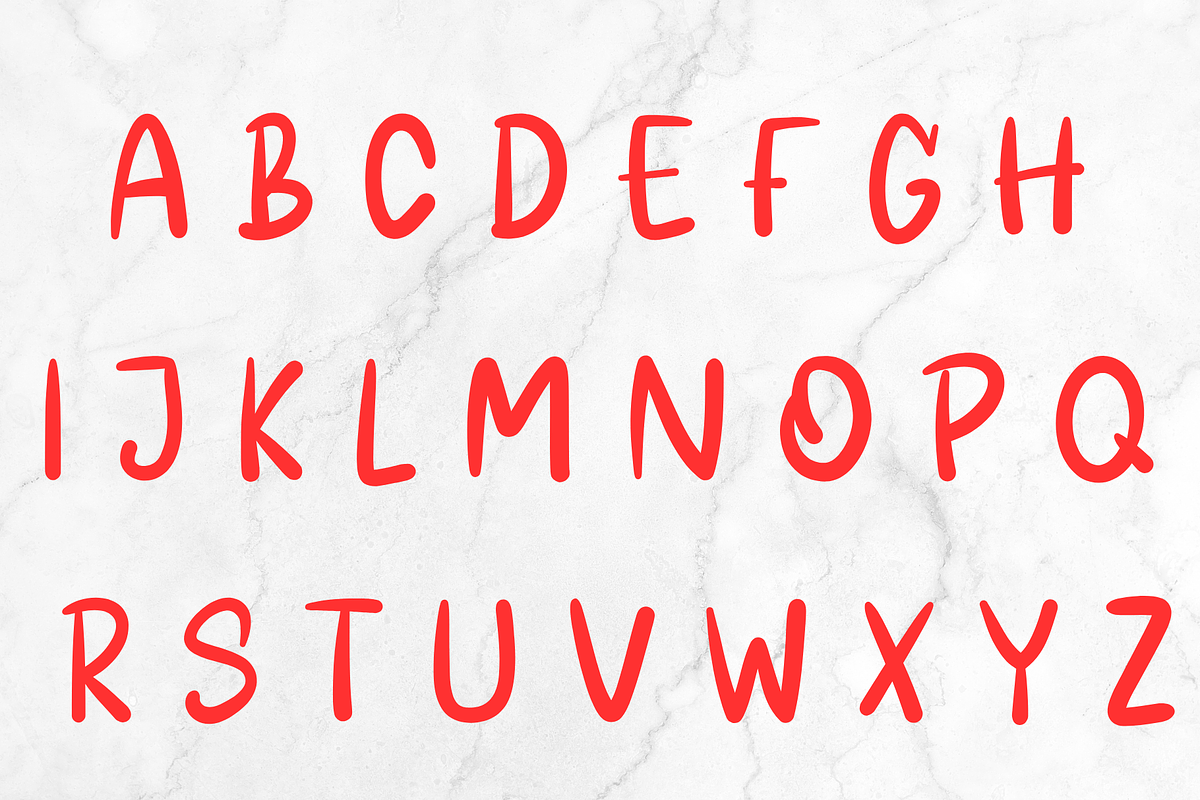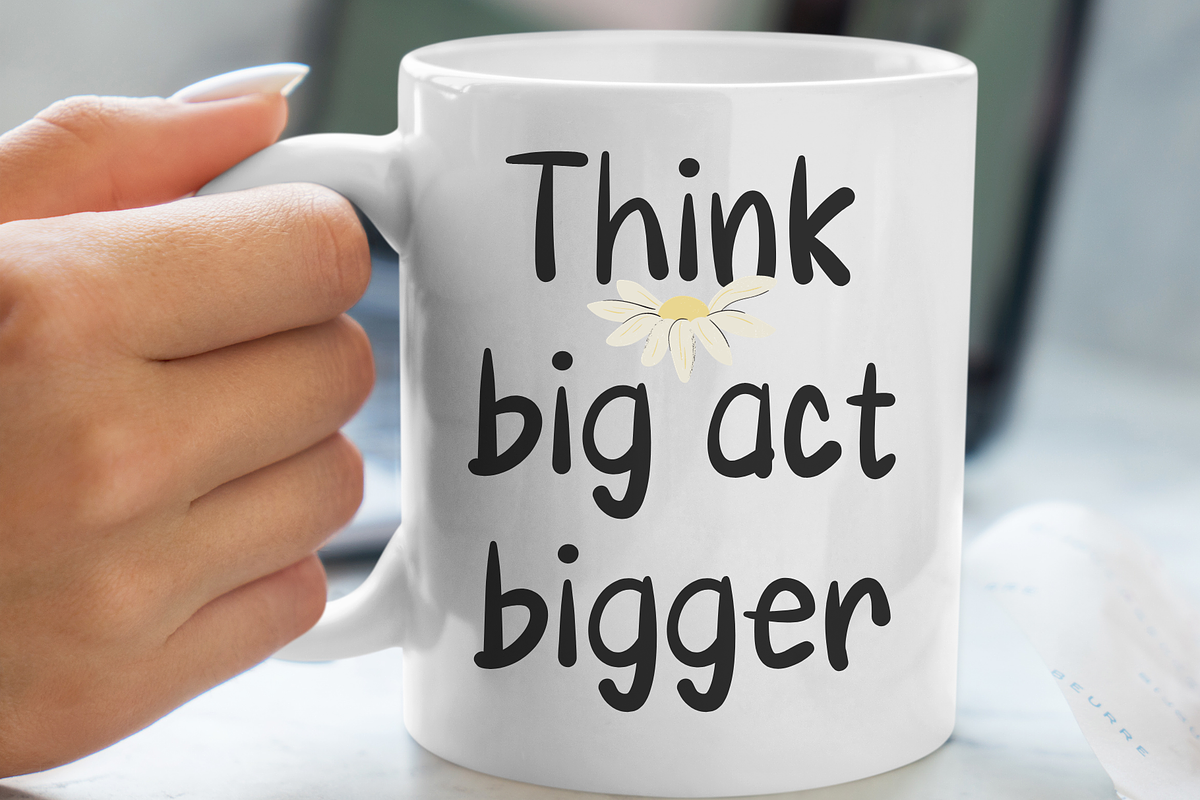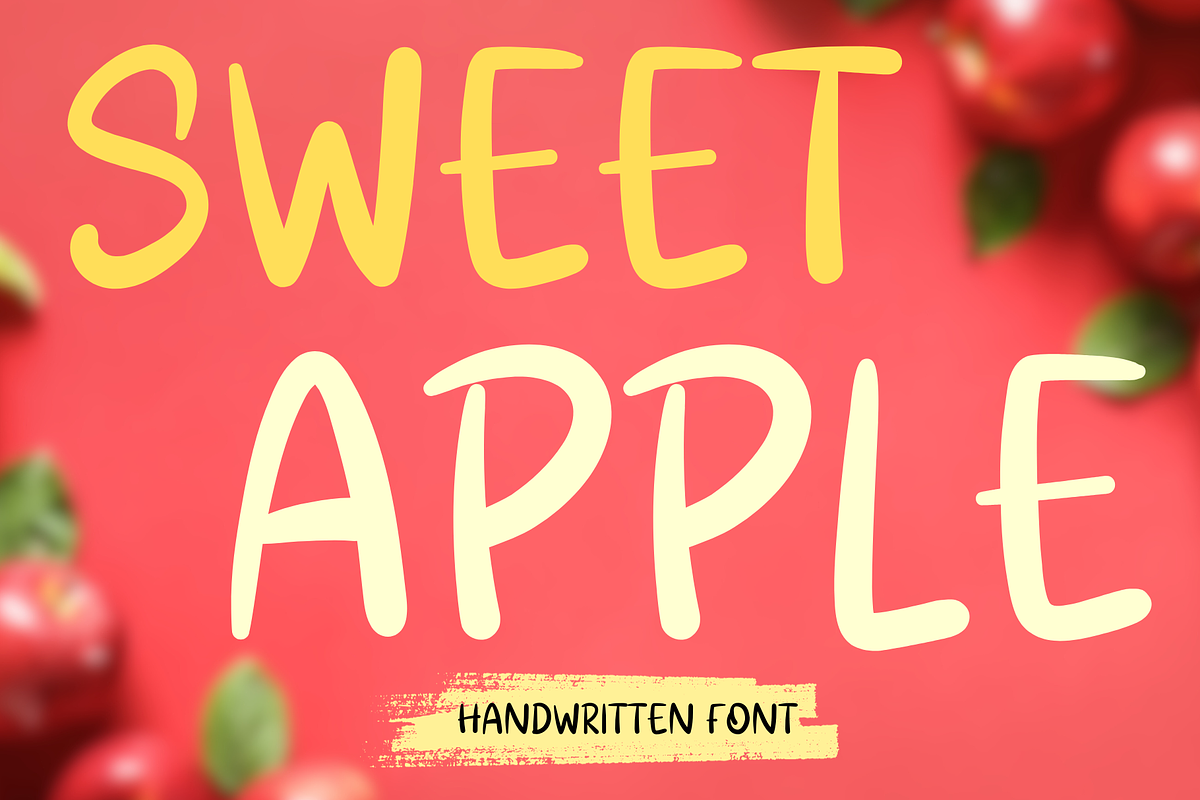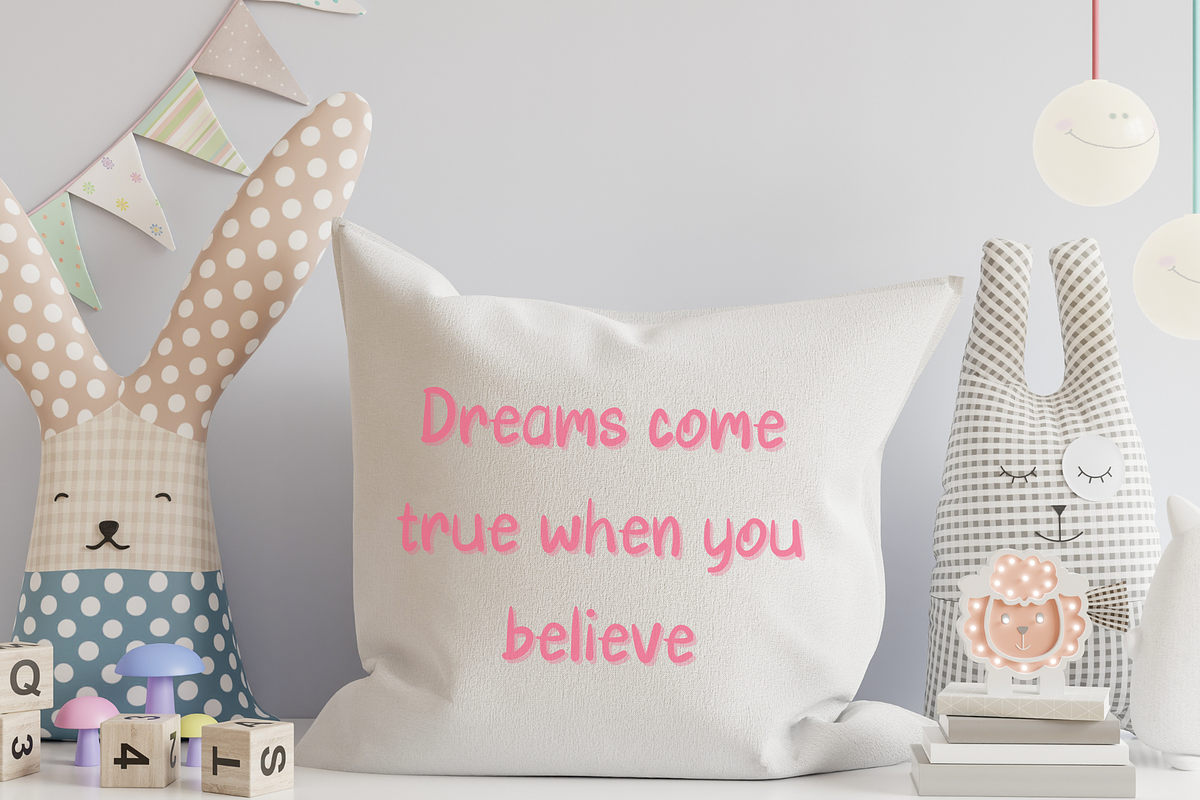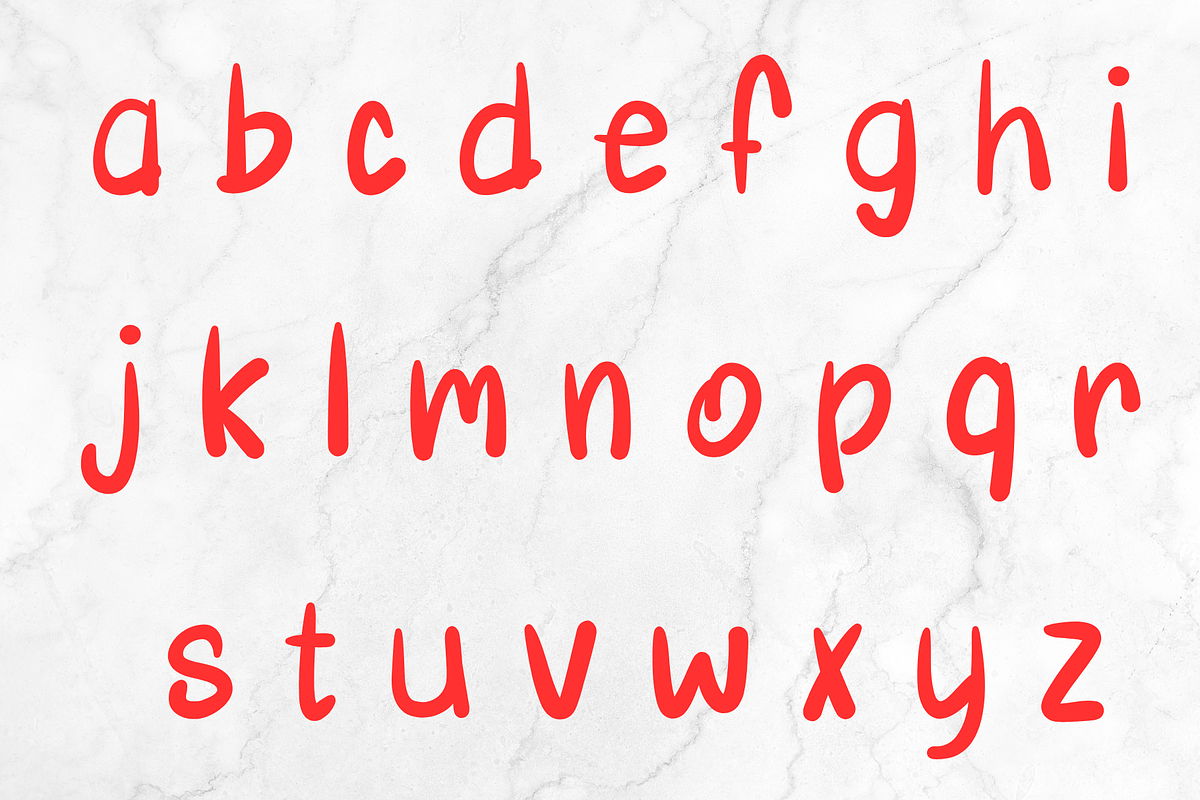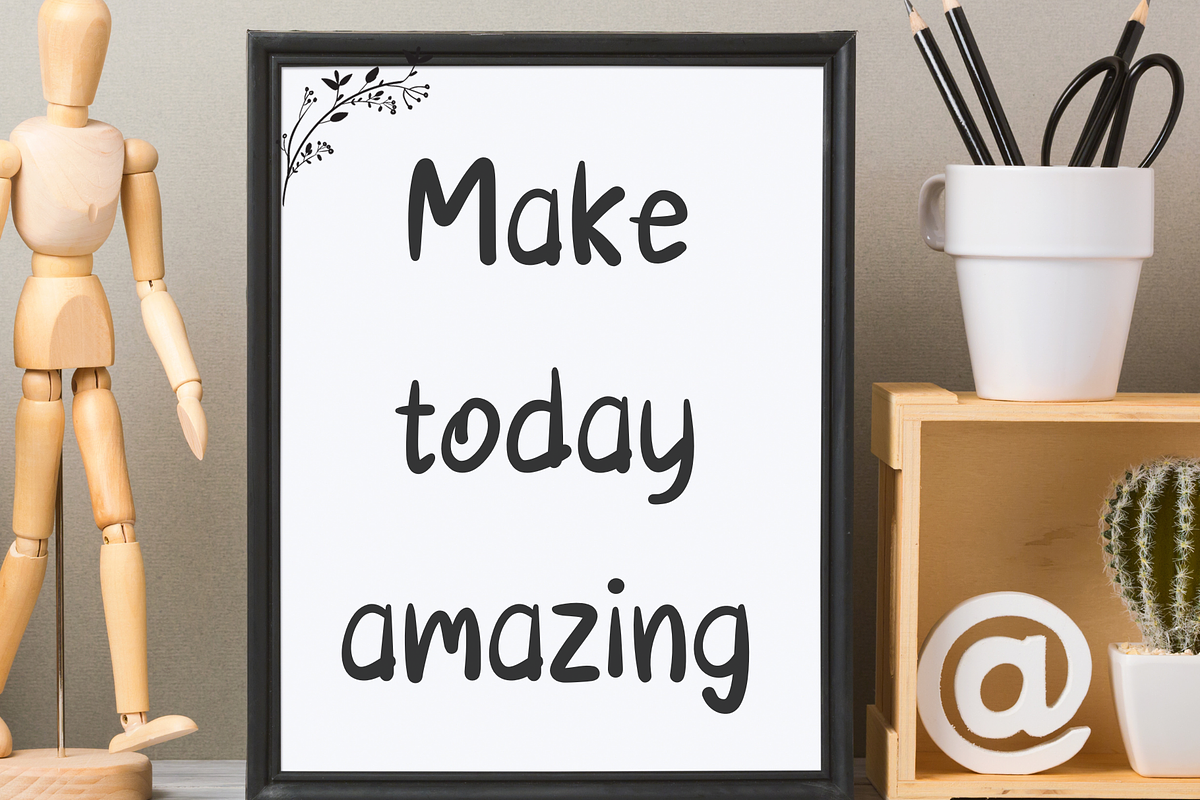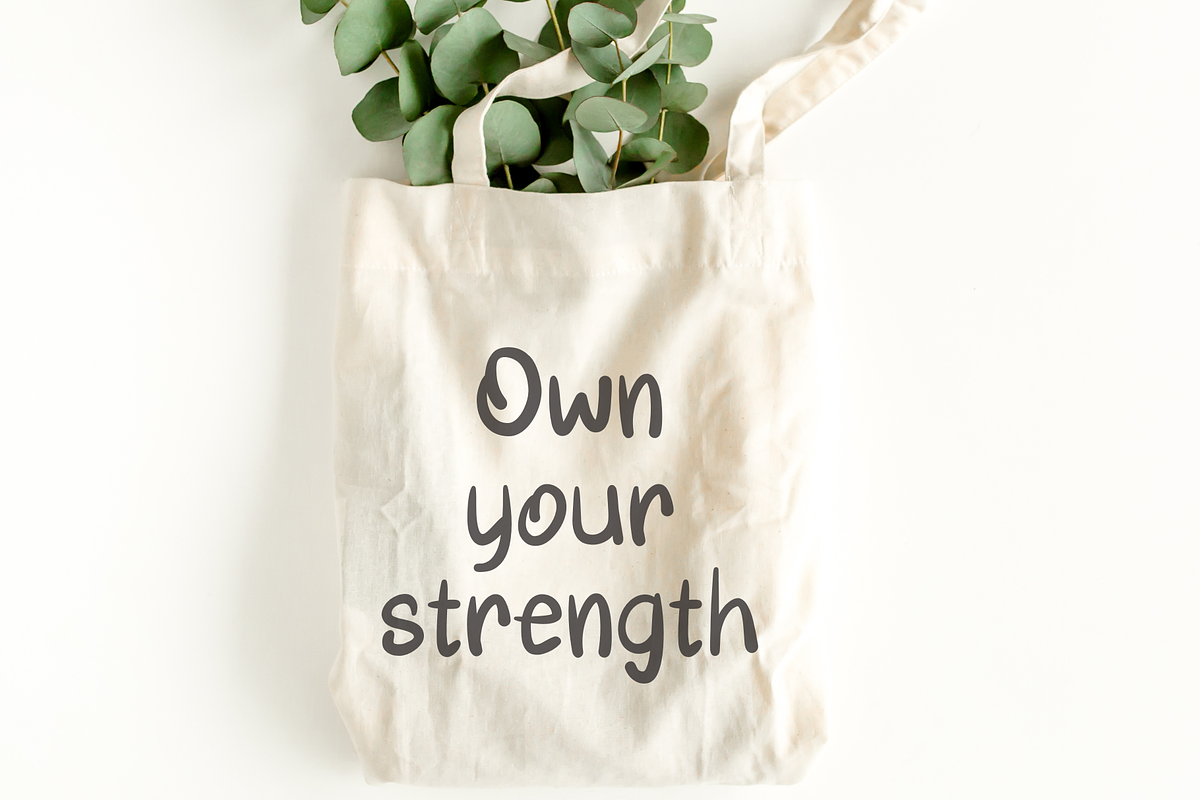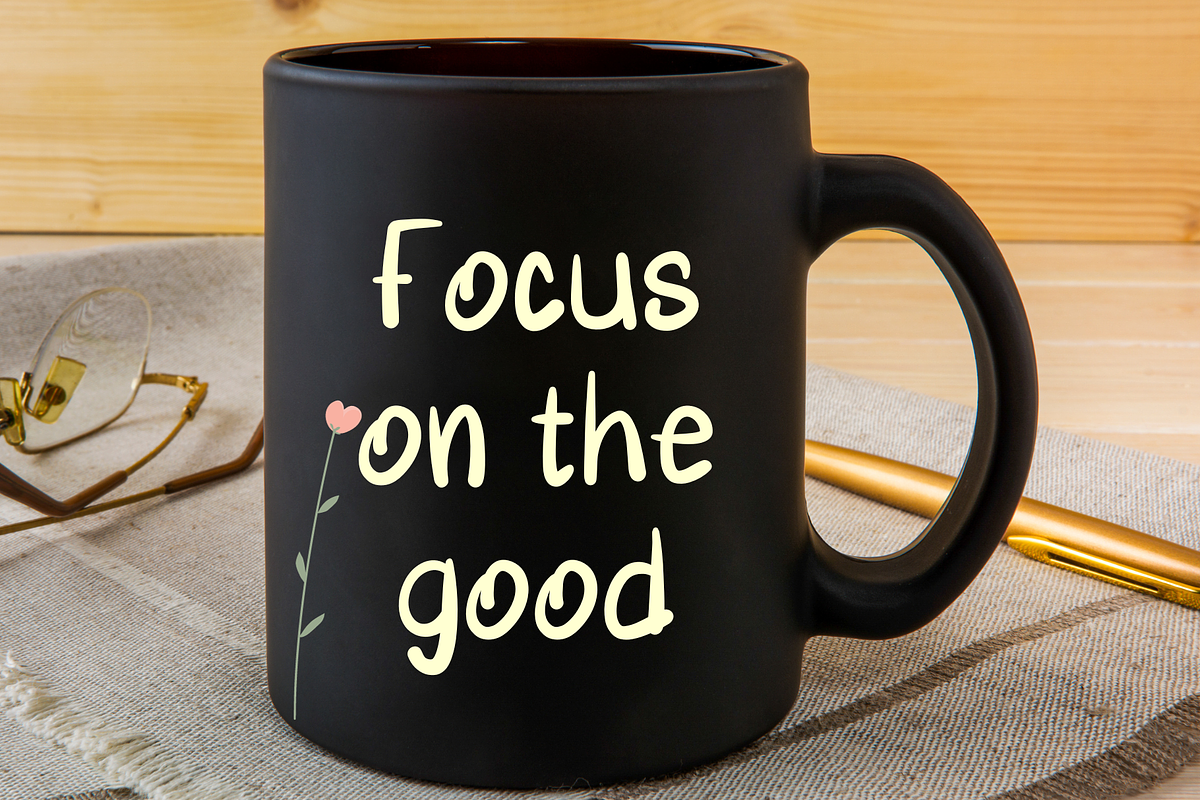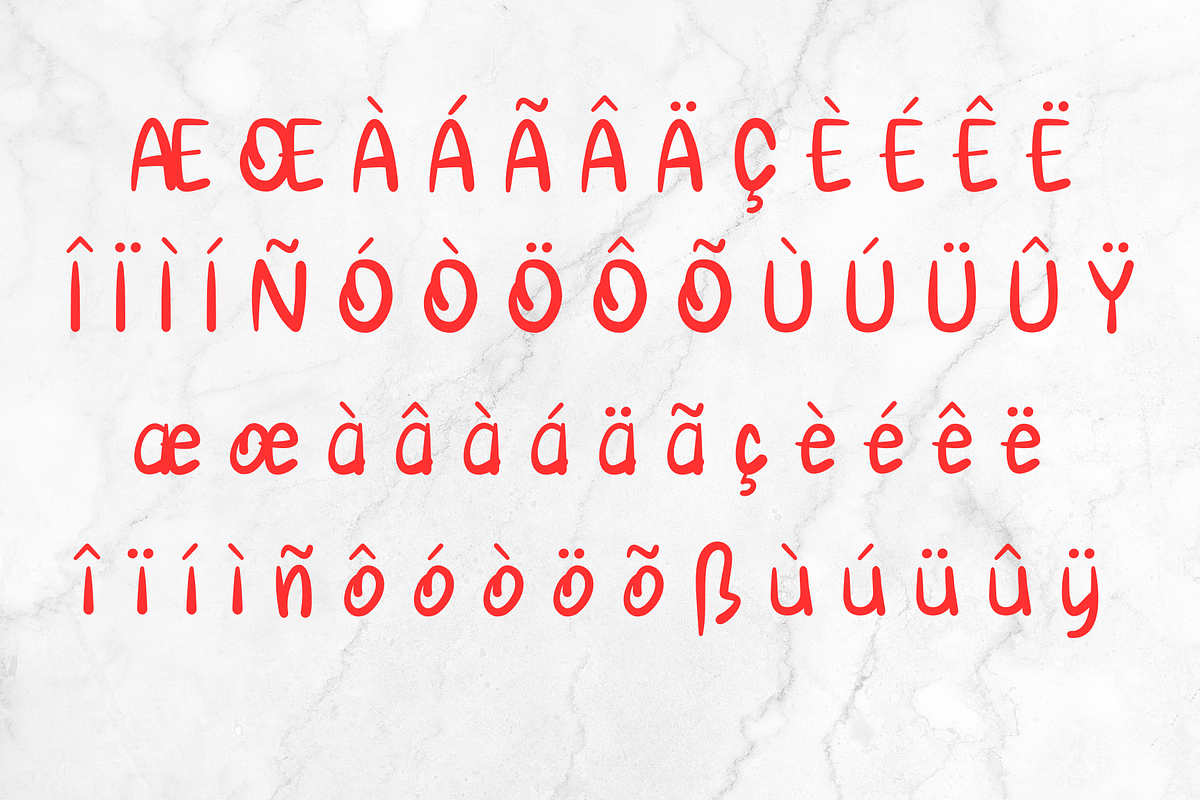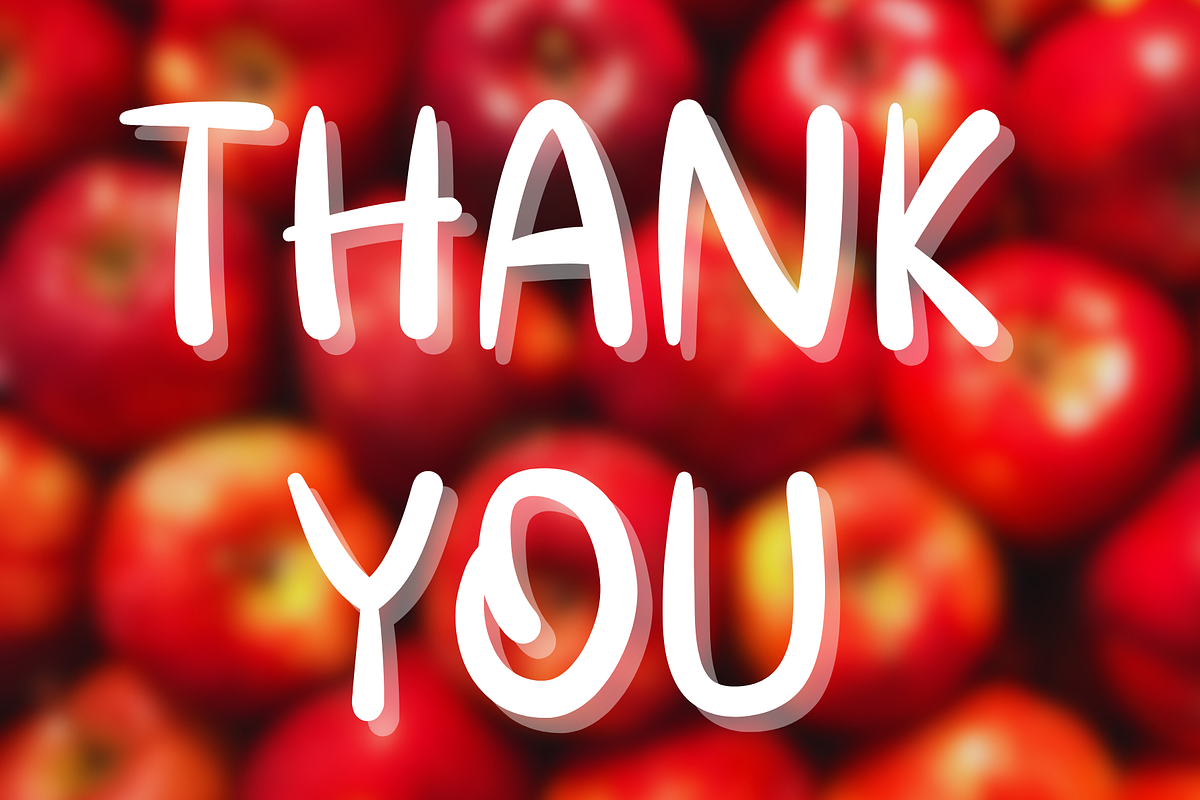
Sweet apple
Sweet apple is a cute and relaxed trio handwritten font. Its natural and unique style makes it suitable for a variety of design ideas. Add it confidently to your projects, and you will love the results. Perfect for your work such as Easter, back to school, wedding, party decoration, invitations, Fall, Halloween, Christmas, posters, blogs, clothing, child-related designs, Cloth bag,mug,social media posts, creating greeting cards, labels, or scrapbook pages, or anything that needs.